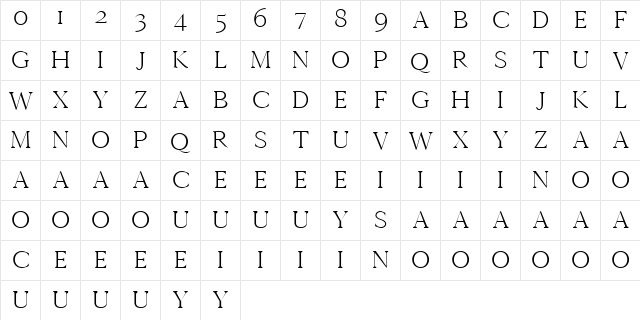
Cammron Demo Regular
| Foundry | Creativetacos |
| Designer | Faraz Ahmad |
Design Context for Cammron Demo Typeface
Cammron Demo offers clean, dependable letterforms without strong stylistic allegiance, making it a practical choice for designers who need flexibility.